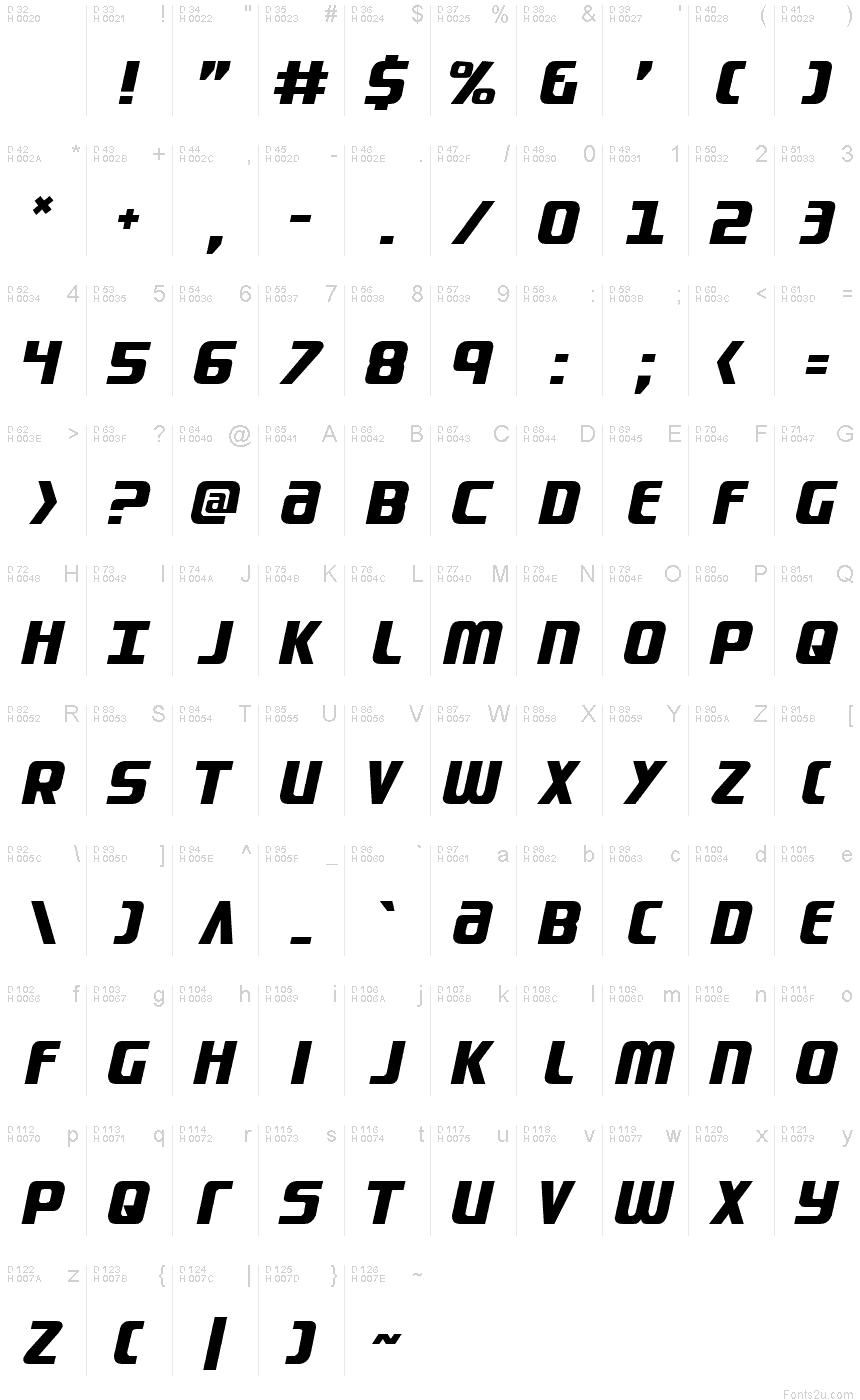
Lightsider Compact by Daniel Zadorozny of Iconian Fonts is a free condensed techno sans serif with a forceful forward slant. Broad strokes press tightly into tall, streamlined letters. Rounded joins and squared openings soften the otherwise sharp, mechanical drawing.
A racing team, esports brand, or performance label could adopt it for an immediate sense of speed. The compact proportions suit vehicle graphics, event posters, and game title screens, especially when the lettering must span a long name. In those settings, the angled forms become part of the action rather than serving as neutral text.